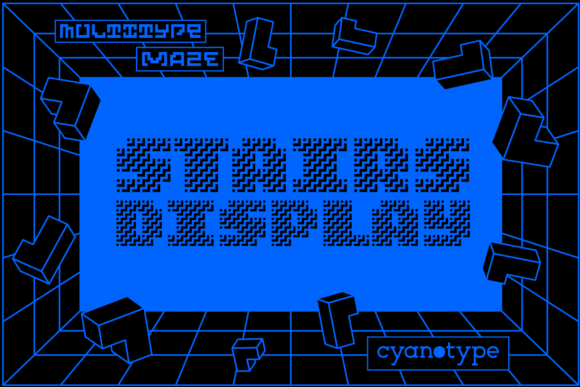
Dive into the enigmatic realm of MultiType Maze Stairs Display, a captivating display font that will transform your digital creations into mesmerizing works of art. Its unique pixelated structure and intriguing shapes add a touch of edgy modernity to your designs, making them stand out from the crowd.
Unleash your imagination and let MultiType Maze Stairs Display guide you through a labyrinth of visual possibilities. Its distorted and trendy character adds a captivating allure to your newsletters, ensuring that your words leave an indelible mark on your readers.
With MultiType Maze Stairs Display, you'll have the power to craft headlines that grab attention, body text that engages, and call-to-actions that inspire. Its PUA encoding ensures effortless access to a treasure trove of glyphs and swashes, empowering you to add a touch of individuality to every project.
Don't settle for ordinary fonts that blend into the background. Embrace the extraordinary with MultiType Maze Stairs Display, where creativity knows no bounds. Let its mesmerizing shapes transport you to a realm of boundless imagination. Download MultiType Maze Stairs Display today and watch as your digital creations soar to new heights of brilliance!